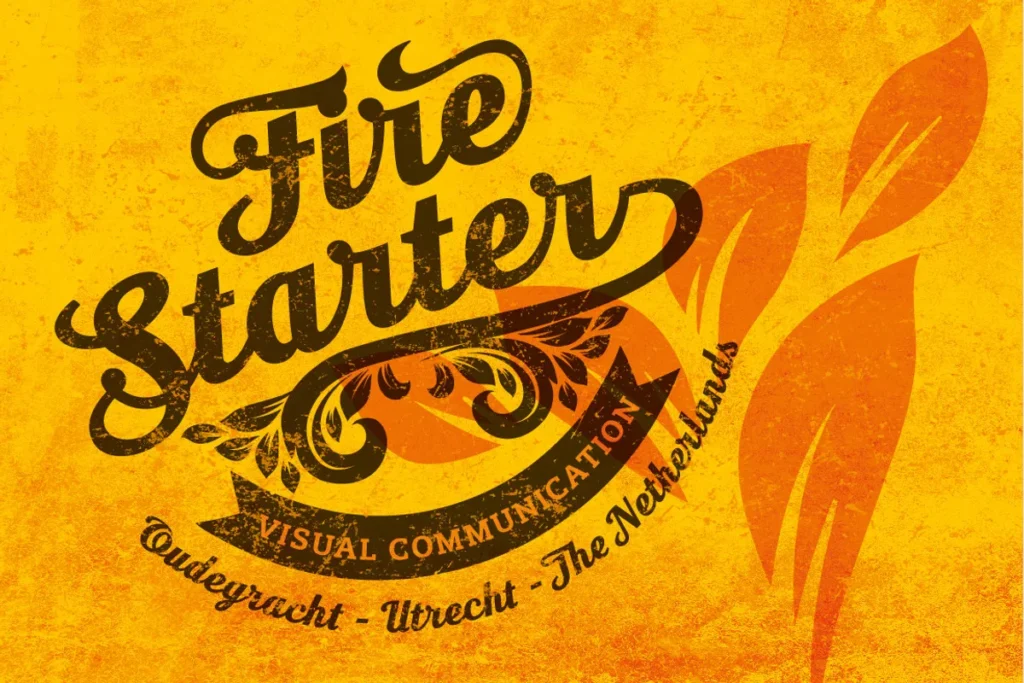
Seren Script Fonts Content is a sans serif form of my past Moonface textual style. Seren is a retro textual style that contains 430 glyph, the OpenType element can be utilized to make your own custom error and plan.
Exceptionally valuable for shirts, pennants, banners, and so on.